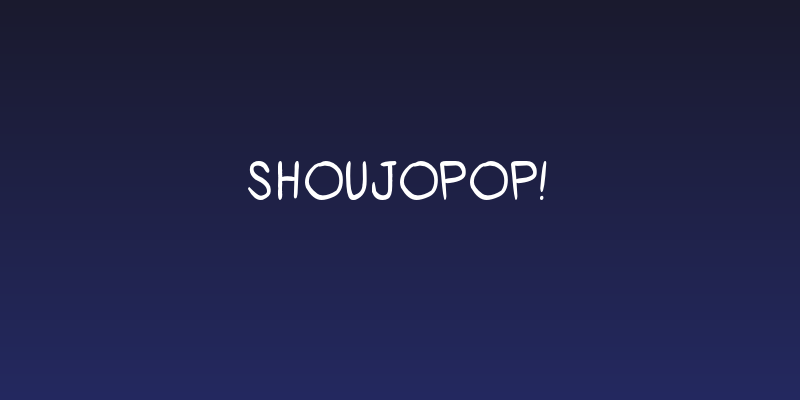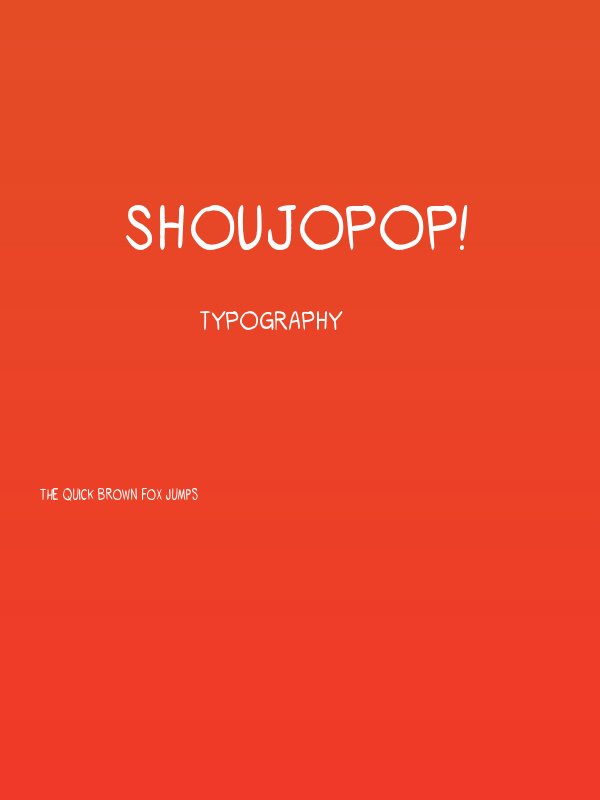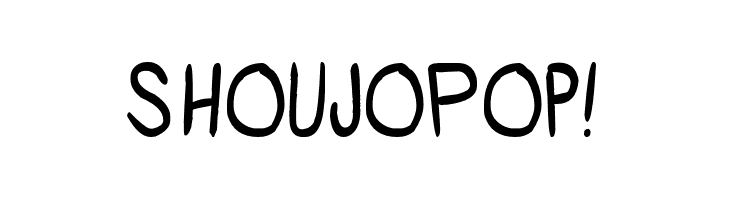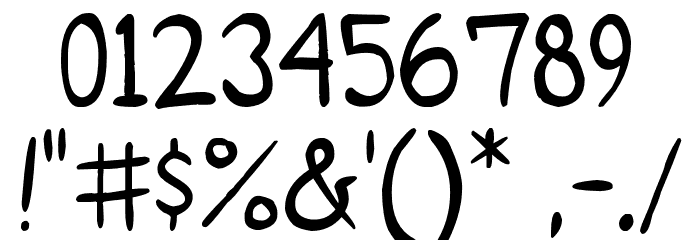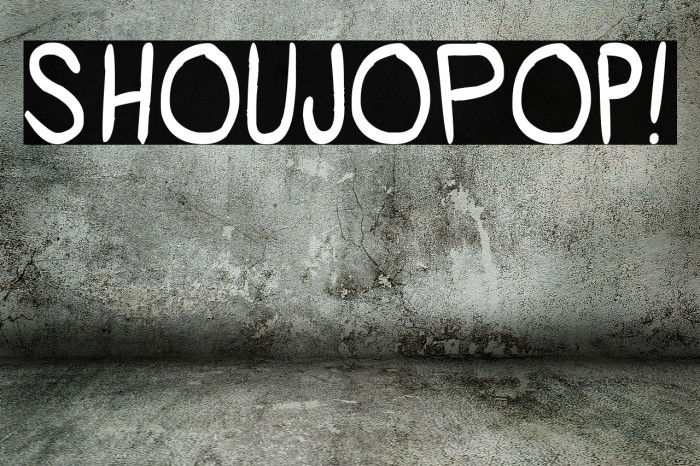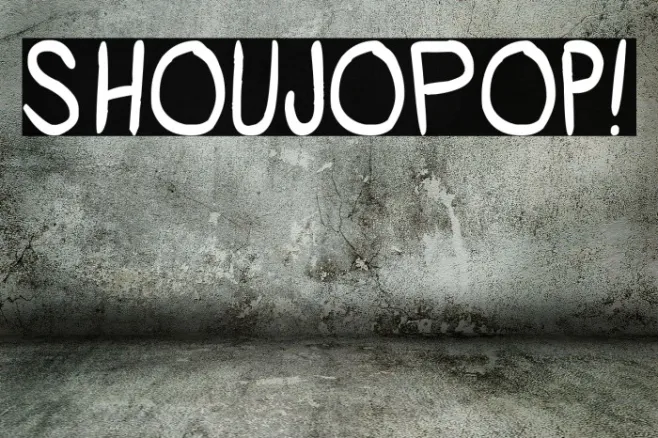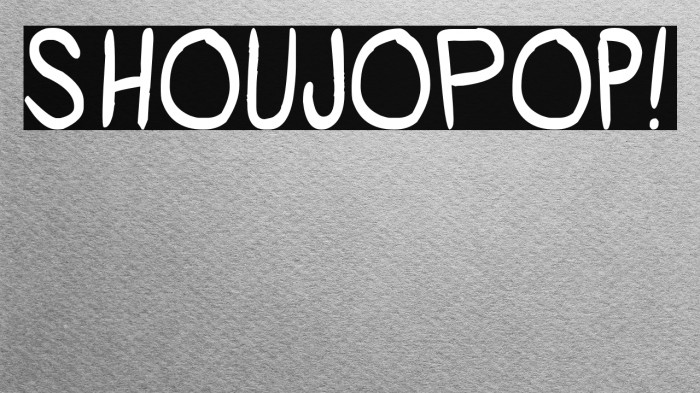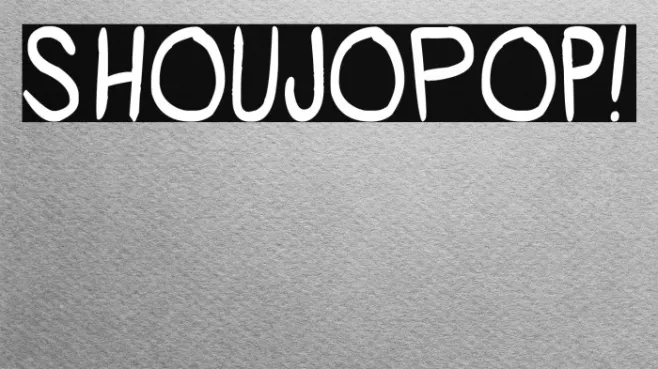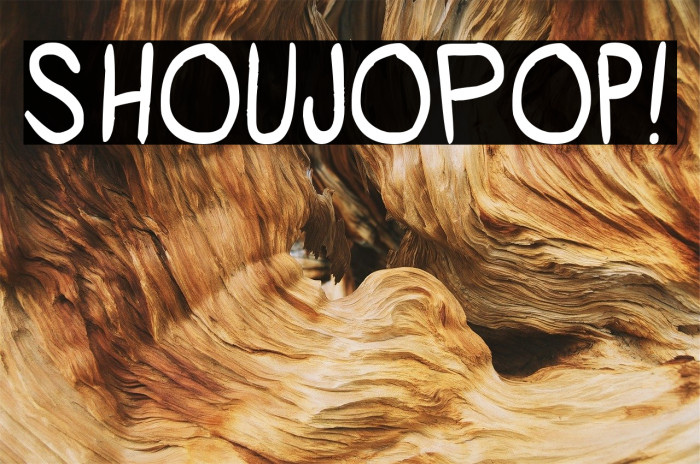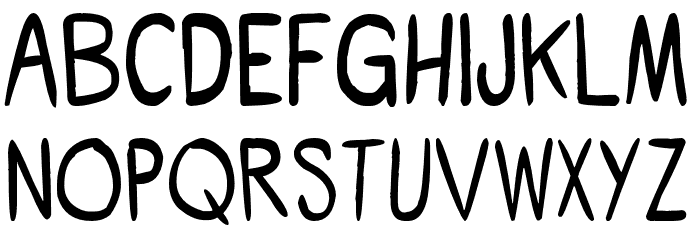
ShoujoPop! Font
ShoujoPop! Description
This playful and energetic font features a handwritten style with a casual and friendly appearance. The characters are slightly irregular, giving it a whimsical and approachable feel. The strokes are bold and rounded, which adds to its charm and makes it highly legible. The uppercase and lowercase letters maintain a consistent style, with a slight slant that adds dynamism. The numerals and special characters are equally expressive, ensuring a cohesive look across all text elements. This font is perfect for projects that require a personal touch and a sense of fun.
| Proposed Projects | Ideal for children's books, comic strips, greeting cards, and playful branding. |